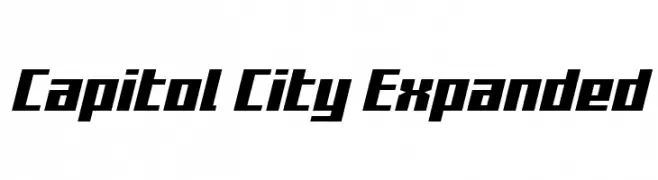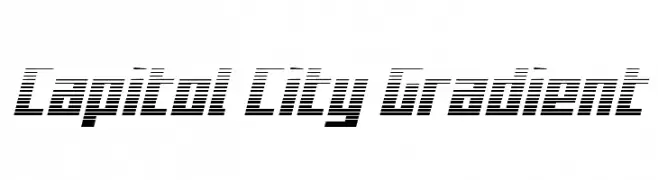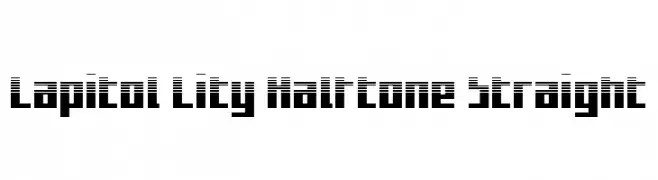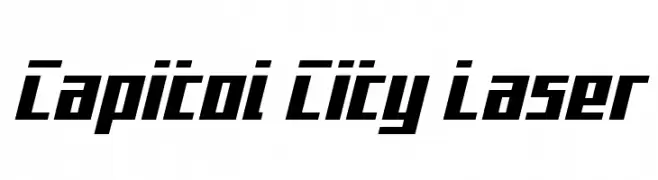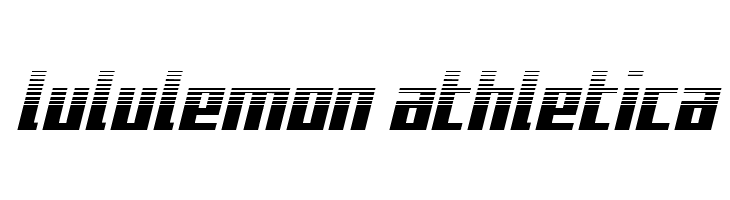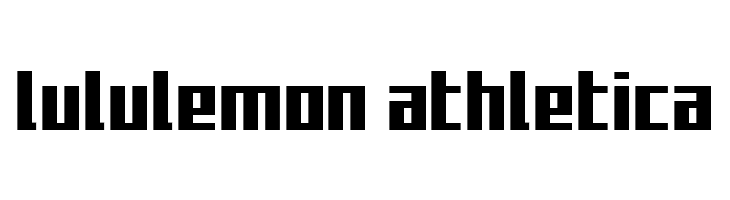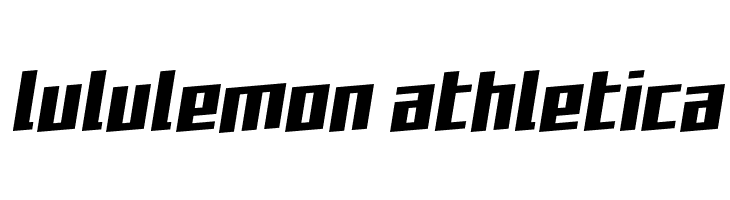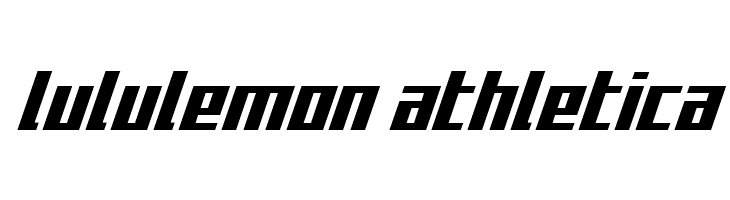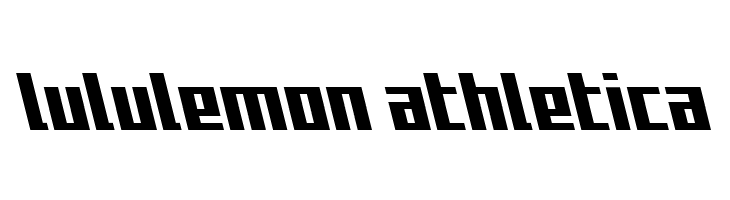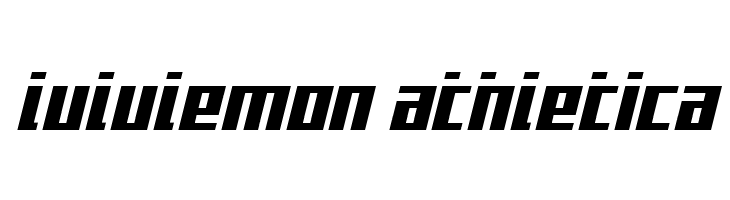
A bold, angular font with a futuristic and dynamic style.
A bold, futuristic font with a striped, gradient effect.
A futuristic, striped font with a digital gradient effect.
A bold, dynamic font with a halftone effect and sharp, angular characters.
A bold, geometric font with a halftone gradient effect.
A bold, angular italic typeface with a futuristic and dynamic style.
A bold, angular font with a futuristic and dynamic style.
A bold, geometric font with a futuristic, digital aesthetic.
A bold, angular font with a leftward slant, exuding energy and modernity.